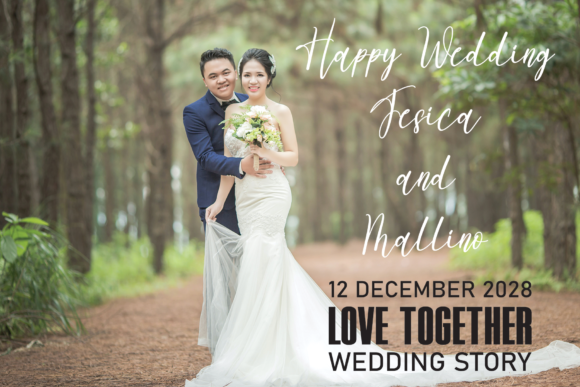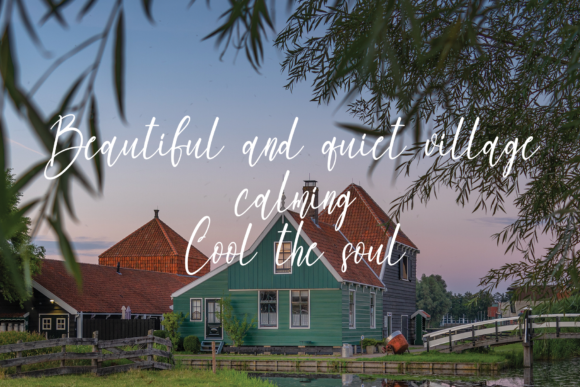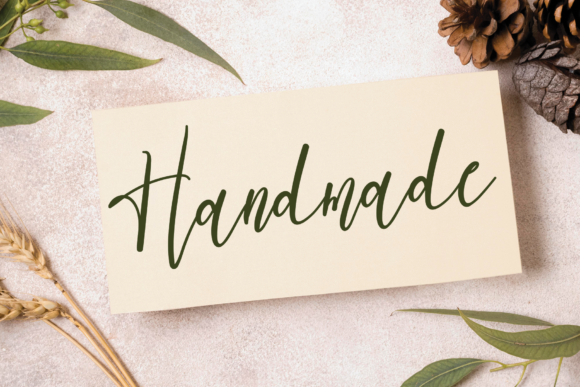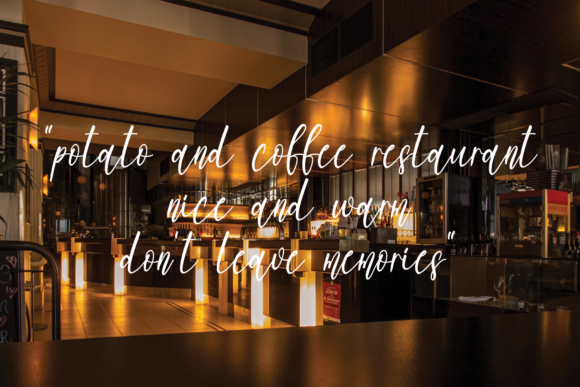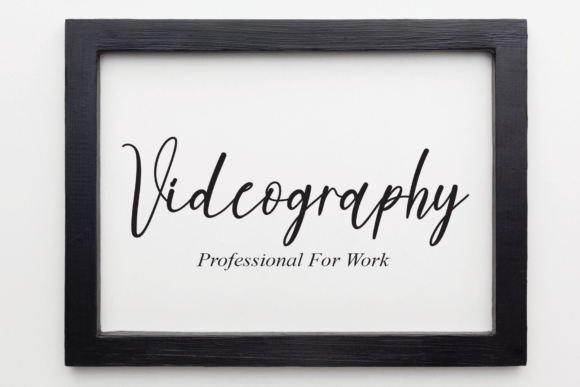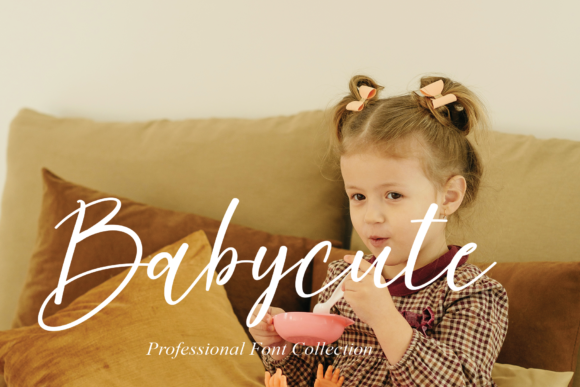
Have you ever been stuck in front of your computer, staring at a blank page, trying to find the perfect font to bring your design to life? We’ve all been there. But what if I told you that the solution is as elegant as a butterfly in flight?
Introducing the Butterfly Font, a beautiful, well-balanced, and stylish script font that’s perfect for fashion branding or editorial designs. With its smooth curves, this font is sure to add a touch of sophistication to any project. Whether you’re a seasoned designer or just starting out, the Butterfly Font is a valuable addition to your toolkit. Its versatility and elegance make it a must-have for any creative professional looking to elevate their work.
Key Features of Butterfly Font
- Size and Resolution: The font comes in 5 weights (Thin, Light, Regular, Medium, and Bold) and 3 styles (Regular, Italic, and Bold Italic), with a minimum size of 8pt and a recommended resolution of 300 DPI for optimal display.
- Unique Characteristics: Butterfly Font features a distinctive, hand-drawn design with flowing lines and organic shapes, giving it a whimsical and elegant feel.
- Kerning and Ligatures: Butterfly Font includes advanced kerning and ligature pairs, ensuring that text sets are displayed with precise spacing and a polished appearance.
Butterfly Font Review
As a designer, I had the chance to work with the Butterfly Font, and I have to say it’s a unique addition to any design project. Here’s my honest review:
- Beautiful handwritten feel: The Butterfly Font has a beautiful, handwritten feel that’s perfect for adding a touch of elegance to your designs.
- Versatile: This font is versatile and can be used for a wide range of projects, from invitations to logos.
- Fun and playful: The Butterfly Font is perfect for projects that need a fun and playful vibe.
- Not suitable for body text: Due to its handwritten nature, the Butterfly Font is not ideal for body text, as it can be difficult to read.
- Limited character set: The font has a limited character set, which can be a problem for projects that require a wide range of characters.
- May not be suitable for formal projects: While the Butterfly Font is perfect for fun and playful projects, it may not be suitable for formal projects, such as business reports or academic papers.
Overall, I think the Butterfly Font is a great addition to any design project that needs a touch of elegance and whimsy. Just be mindful of its limitations and use it wisely!
Getting the Most Out of the Butterfly Font
To get the most out of the Butterfly Font, try the following tips:
- Pair the font with other decorative fonts or graphics for a unique look.
- Use the font in combination with images or textures for added depth and visual appeal.
The Butterfly Font is commonly used in:
- Wedding invitations and decorations.
- Wedding stationery and gift tags.
- Event
Alternatives to Butterfly Font for Designers
Cambria
Cambria is a serif font that is elegant and sophisticated. It is ideal for use in body text, particularly in documents and books, where readability is key. Cambria is a good alternative to Butterfly Font for designers who want a more traditional and classic look.
Comparison to Butterfly Font: Cambria has a more formal and structured feel compared to the whimsical and playful nature of Butterfly Font.
Aleo
Aleo is a script font that is highly customizable and versatile. It is perfect for use in invitations, wedding designs, and other creative projects where a touch of elegance is needed. Aleo is a good alternative to Butterfly Font for designers who want a more refined and sophisticated look.